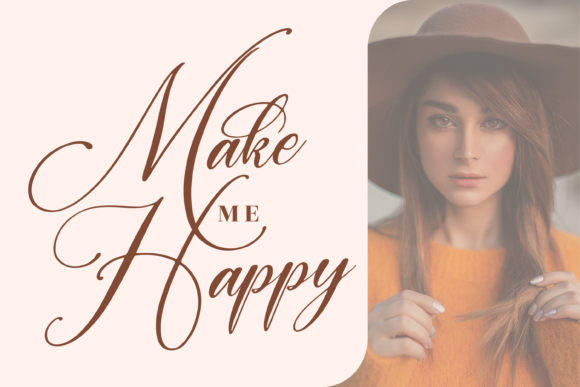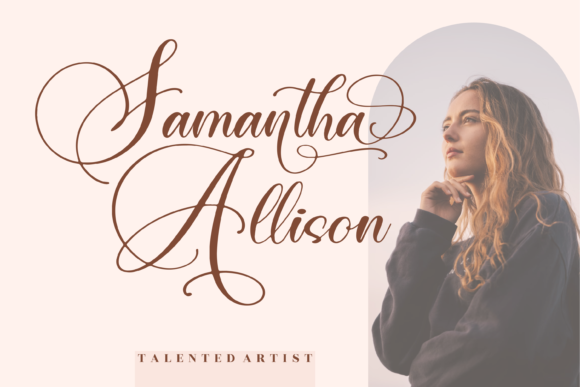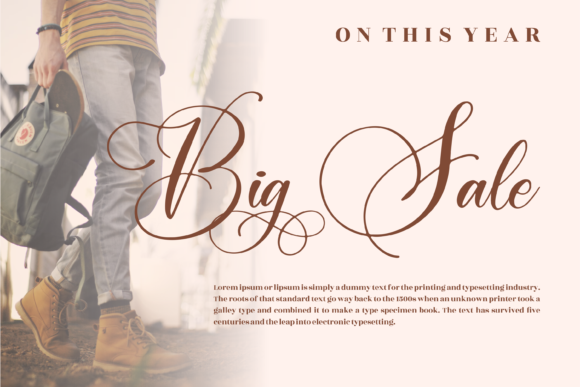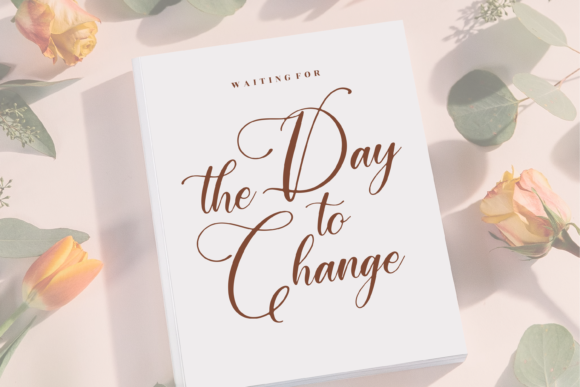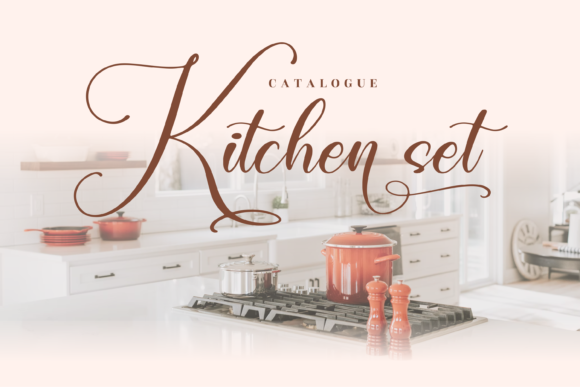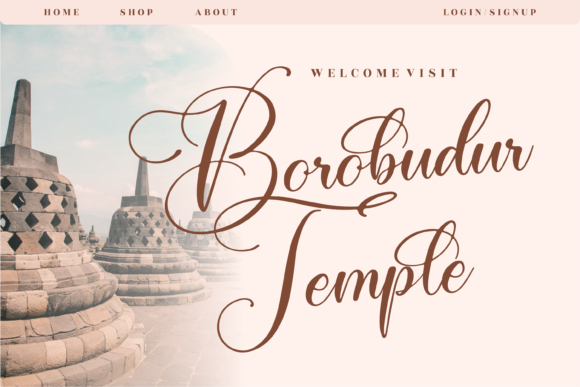
Discover the Elegance of Adelyna Font
There’s something magical about seeing your ideas come to life on a blank canvas. For designers, that moment of creation is what drives us to push the boundaries of beauty and style. Whether you’re crafting a wedding invitation or a branding campaign, the right font can make all the difference. And that’s where the Adelyna Font comes in – a ravishing and delicate script font that exudes elegance and class.
Designed specifically for those seeking a beautiful and refreshing look for their designs, the Adelyna Font is a valuable addition to any designer’s toolkit. With its PUA encoding, you can access all glyphs and swashes with ease, giving you the creative freedom to experiment and express yourself. Whether you’re a seasoned pro or just starting out, the Adelyna Font is sure to inspire your next design project.
Adelyna Font Key Features
- Font Family: Adelyna is a beautiful and elegant script font.
- Unique Characteristics: Adelyna features a unique blend of classic and modern elements, with intricate flourishes and elegant lines, making it perfect for various design projects.
Adelyna Font Review
Overall, I was excited to dive into the Adelyna Font. As a designer, I’m always on the lookout for unique and elegant fonts to elevate my projects. Here’s my honest take on this font.
- Refined and Elegant Feel: Adelyna Font exudes a sense of sophistication and refinement, making it perfect for high-end projects.
- Wide Range of Applications: This font is versatile and can be used for both print and digital projects, from magazines to websites.
- Clear and Easy-to-Read: The font’s design ensures that text is clear and easy to read, even at smaller font sizes.
- Limited Character Set: The font’s character set is limited, which may not be ideal for projects requiring a wide range of special characters or languages.
- No italics or bold variants: The font only comes in a single weight, which may limit its use in certain contexts.
While Adelyna Font has its limitations, its refined and elegant feel makes it a great choice for high-end projects. However, it may not be the best option for projects requiring a wide range of special characters or languages. With some additional variants and character sets, this font could truly shine.
Tips for Getting the Most Out of Adelyna Font
Use Adelyna Font for titles, headings, and body text to create a cohesive and stylish design.
Experiment with different font combinations and colors to add visual interest to your design.
Use the font to create a consistent brand identity across all your marketing materials.
Alternatives to Adelyna Font
Ostrich Sans is a modern sans-serif font with a geometric feel, ideal for digital products and interfaces. It has a more angular and geometric look compared to Adelyna Font, making it suitable for bold and futuristic designs.
Montserrat is a sans-serif font inspired by urban typography, perfect for headlines and titles. It has a more condensed and sleek look compared to Adelyna Font, making it ideal for minimalist and modern designs.
Open Sans is a clean and modern sans-serif font suitable for digital products and interfaces. It has a more neutral and approachable look compared to Adelyna Font, making it ideal for everyday use and reading.
Alegreya Sans
Alegreya Sans is a modern sans-serif font with a calligraphic feel, ideal for editorial and publishing designs. It has a more elegant and refined look compared to Adelyna Font, making it suitable for sophisticated and high-end designs.